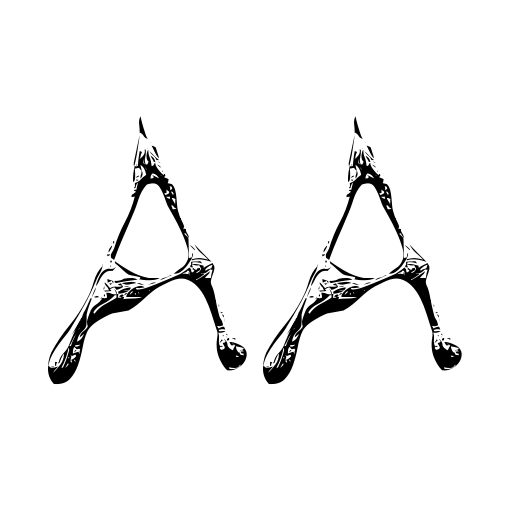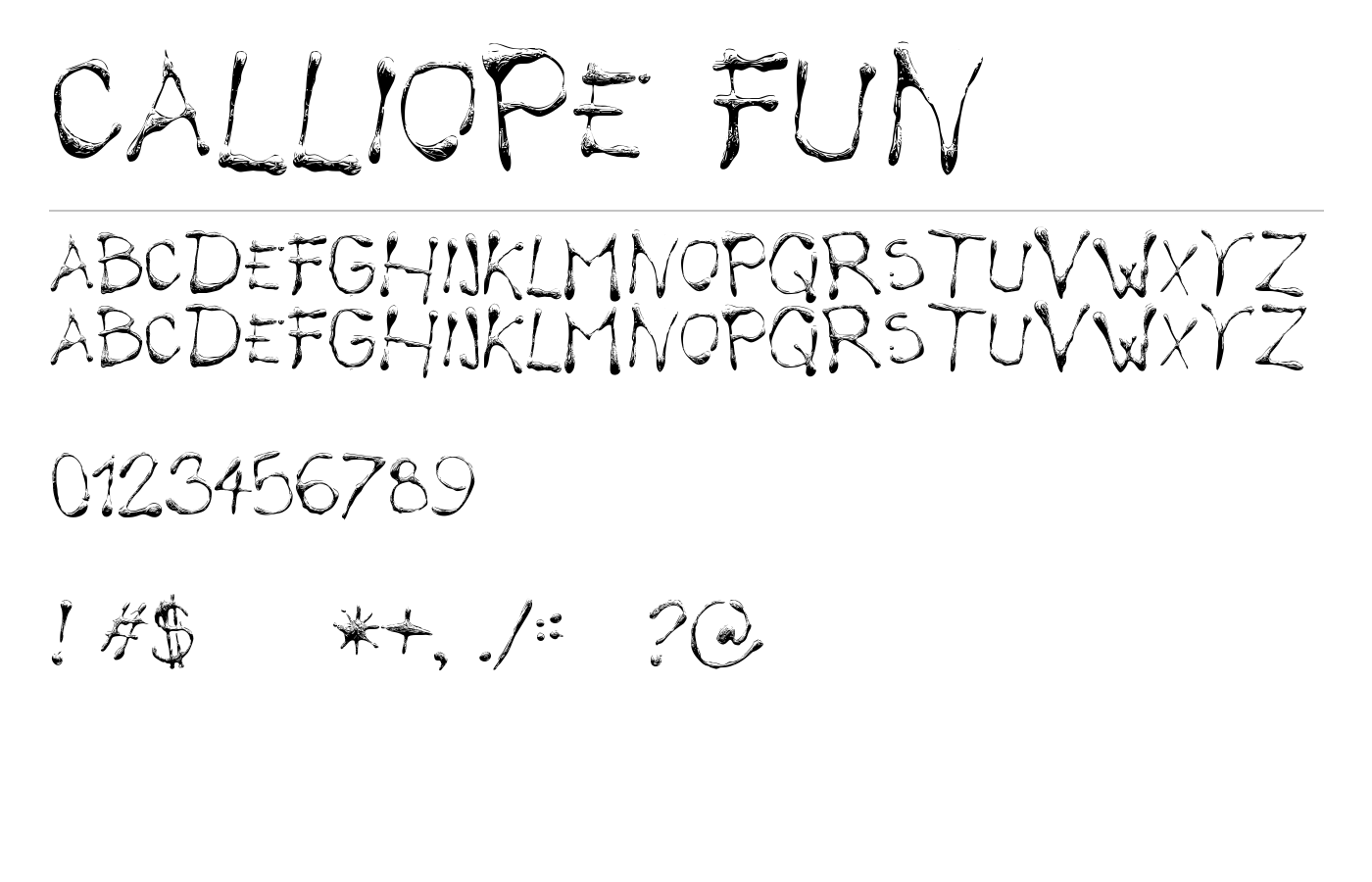
Calliope Fun is a playful, hand-drawn sans serif font characterized by its irregular, organic strokes and quirky letterforms that give it a lively, artistic feel. Its narrow width and uneven texture make it ideal for creative projects needing a distinctive, informal style, such as posters, packaging, and children’s materials, where a fun and dynamic impression is desired. This font stands out with its unique personality and expressive charm, perfect for designs that want to break the mold with a handcrafted touch.
Calliope fun Font
About Calliope fun Font